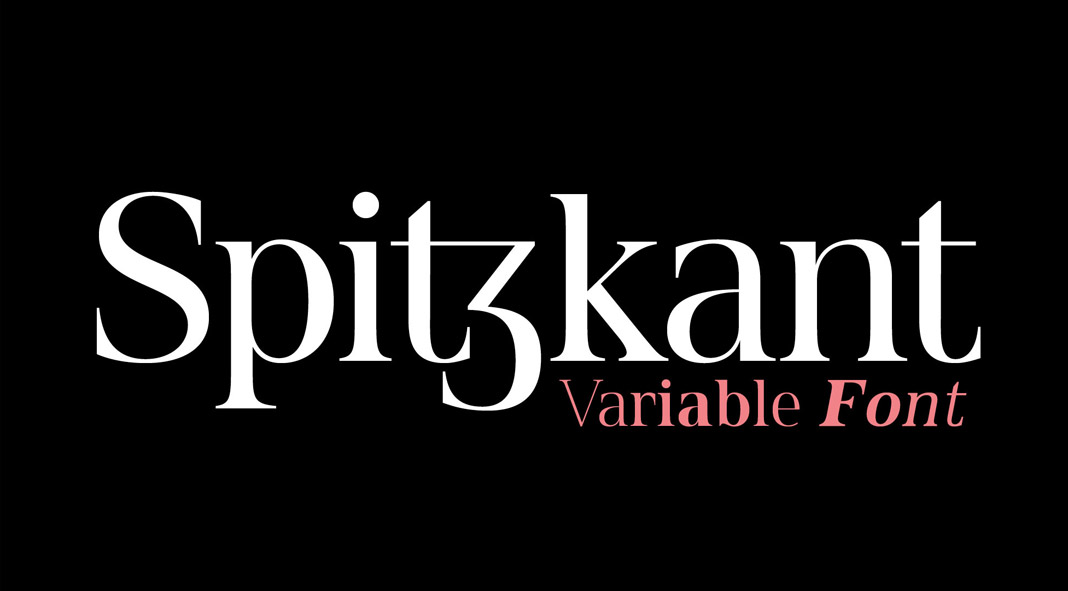
German type designer Julien Fincker just released the variable version of its popular Spitzkant typeface.
About one and a half years ago, German type designer Julien Fincker published his font family Spitzkant, a high-contrast serif font in two optical sizes (display and text). Due to its many features, Julien Fincker decided to develop an additional variant version of its popular Spitzkant typeface. For those of you who do not know what a variable font is, it’s a technology that achieves more and more attention. It combines almost infinite many fonts and weights in one single font file. If you want to learn more about this new typeface, just take a look at Julien Fincker’s website or follow the link below to download the Spitzkant Variable font.